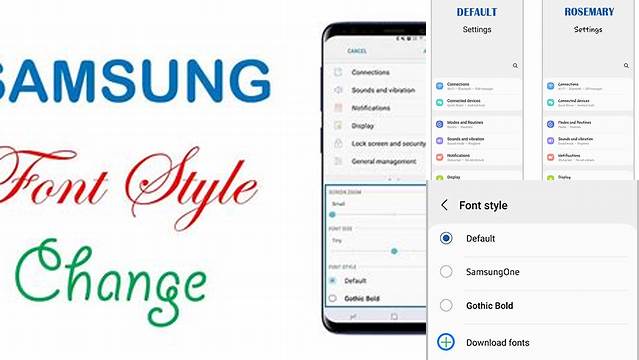
Free Font Fun: Changing Styles On Your Samsung
Hey guys, are you tired of the same old boring font on your Samsung phone? Do you wish you could spice things up a bit and personalize your device to match your vibe? Well, you're in luck! Changing your font style on a Samsung phone is easier than you might think, and the best part? You can do it for FREE! This comprehensive guide will walk you through all the steps, tips, and tricks to transform your phone's look and feel. Let's dive in and make your Samsung phone truly yours!
2. Default Font Options and Pre-Installed Styles
So, you've reached the 'Font size and style' section, and now you're wondering what's available right out of the box? Well, your Samsung phone comes with a selection of default font options and pre-installed styles to get you started. These pre-installed fonts are usually a mix of classic and modern styles, designed to cater to various tastes and preferences. You'll typically find the standard Samsung font, which is clean and readable, perfect for everyday use. Besides that, there may be other fonts like 'Roboto' or 'Choco cooky', which offer a slightly different aesthetic. The Roboto font is known for its clear and modern look, while the 'Choco cooky' is a fun and playful option. Guys, it's important to explore these pre-installed styles to see what resonates with you. Experiment with different font options to get a feel for how they change the overall look of your phone's interface. Changing the font can dramatically alter your phone's personality. You might discover a font that makes reading easier on your eyes or a style that matches your current mood. If you find one that you love, consider using it as your everyday font. However, if you're looking for something more unique, then you can move to the next step and explore the world of font downloads. These default styles are a great starting point, but don't be afraid to try something new! Play around with the available choices to see what suits you best, and remember that personalizing your phone is all about expressing your individuality. There are fonts for almost any style you can imagine.
2.1 Exploring the Samsung Default Font
The Samsung default font is designed to be user-friendly and highly readable. It's optimized for the display of your phone and ensures that text is clear, crisp, and easy on the eyes, even during extended use. This font is often a safe bet for users who want a simple, clean look without any unnecessary embellishments. It's a sans-serif font, which means it doesn't have the small strokes or serifs at the end of each letter. This clean design contributes to its readability, making it an excellent choice for those who spend a lot of time reading on their phones. The Samsung default font is generally the go-to option for many users. Its consistent design ensures that all text, from system menus to app interfaces, maintains a uniform appearance. You will notice that it is very well adapted to different screen sizes and resolutions, maintaining its readability. As you explore other fonts, consider the readability of the Samsung default font. It is a great benchmark to compare and help you decide which font to choose. Think about your reading habits and how the font affects your daily use of the phone. Many users prefer the Samsung default font because it is functional, simple, and doesn't distract from the content. This font prioritizes clarity, which enhances the user experience. Consider how the default font looks on your phone and compare it with the alternatives. If you prioritize the appearance of the text, you might want to explore other options. Remember that the Samsung default font is a great choice for any situation.
4.1 Troubleshooting Font Application Issues
Sometimes, you may face a few hiccups while applying your downloaded fonts, but don't worry! Here's how to troubleshoot some common font application issues. First, make sure the font you downloaded has been correctly installed. To do this, go back to your 'Font size and style' settings and check if the new font appears in the list of available fonts. If it's not there, try restarting your phone. A simple reboot often resolves minor installation problems. If the font still doesn't show up, make sure you have enough storage space on your phone. Sometimes, if the phone is running low on storage, the new font might not install properly. Delete unnecessary files and clear some space. After checking for installation, make sure the font is compatible with your device. Although most fonts from the Galaxy Store are designed to work with all Samsung devices, it's still a good idea to double-check the font details for compatibility information. In rare cases, some apps might not support custom fonts. If you notice that a particular app doesn't display the new font, it may be designed to use its own font. Finally, if all else fails, you can try uninstalling and reinstalling the font. Go to the 'Font size and style' settings, tap on the font you wish to remove, and select the uninstall option. Then, go back to the Galaxy Store and download the font again. Troubleshooting can seem challenging at first, but these troubleshooting steps can help resolve most font-related issues.
5. Customizing Font Size and Boldness
Alright, so you've got a cool new font installed, but maybe the size or boldness isn't quite right. That's where customization comes in! Fortunately, Samsung lets you tailor the font size and boldness to your preferences. Within the 'Font size and style' settings, you'll find a slider to adjust the font size. Drag the slider to the right to increase the size or to the left to decrease it. It's that simple! Experiment with different sizes until the text is easy to read without being too overwhelming. To make the font bolder, there's usually a toggle switch labeled 'Bold font'. Turn this on, and your font will instantly become thicker, making it easier to read, especially in bright sunlight or for those with visual impairments. Combining a new font with custom size and boldness lets you create a unique and readable display. A larger font size might be beneficial if you have trouble reading small text. A bolder font can add a pop to your display. The combination of a unique font and customized size and boldness allows you to create a display that is both stylish and practical. Think about the type of content you read most often on your phone. Adjust the settings to maximize your comfort. The options are there, so play around until you find the perfect balance that is both visually appealing and comfortable to read.
5.1 Adjusting Font Size for Optimal Readability
13.1 Solving Font Display and Rendering Problems
When you encounter font display and rendering problems, you will need to troubleshoot your Samsung device. Start by checking the font settings. Ensure that the font you've selected is correctly applied. Sometimes, settings can be accidentally changed or reset. Verify the app's font settings. Some apps have their font settings. Adjust them to match your preference. Clear the app's cache. Clearing the cache can often fix font rendering issues. Restart your phone. Restarting your phone is often a good idea. Check your phone's system updates. Make sure your phone has the latest software updates. If nothing seems to be working, try reinstalling the font. Lastly, contact customer support. Provide them with as much information as possible. They may be able to help solve the problem. Troubleshooting will help you make your device look great. These steps will help you get your fonts working correctly.